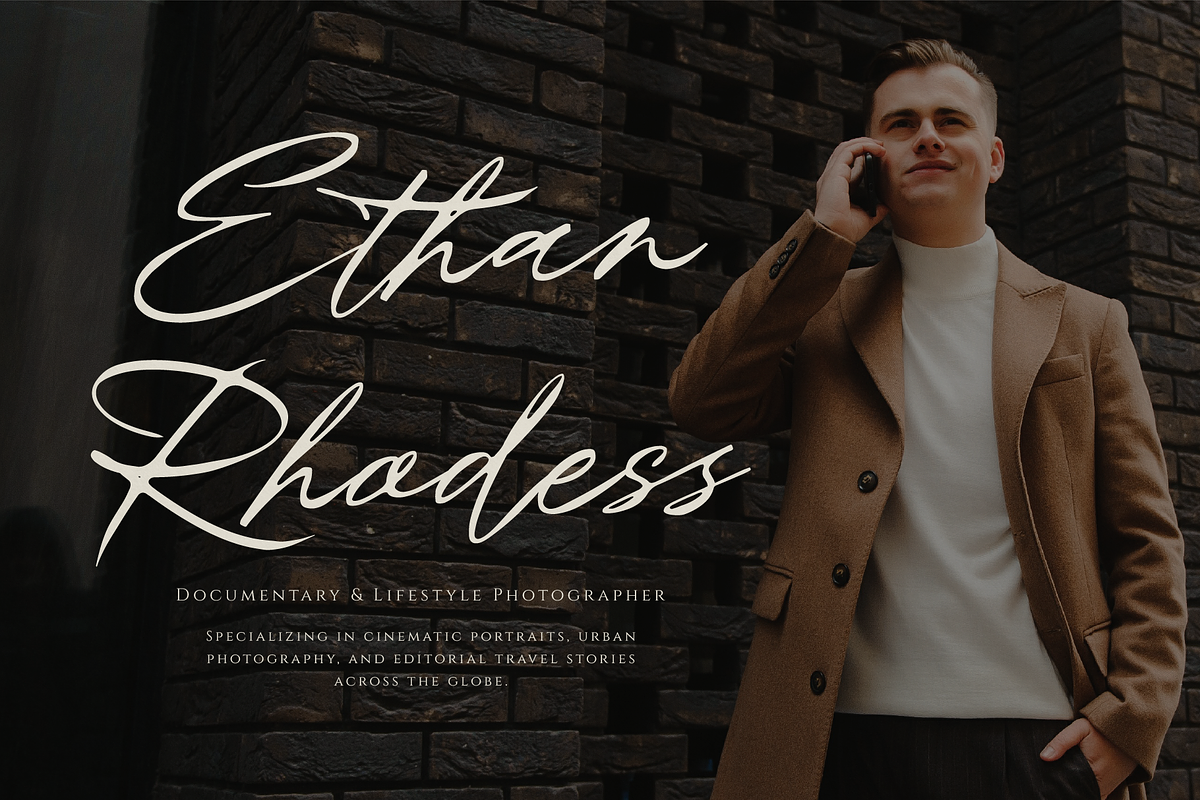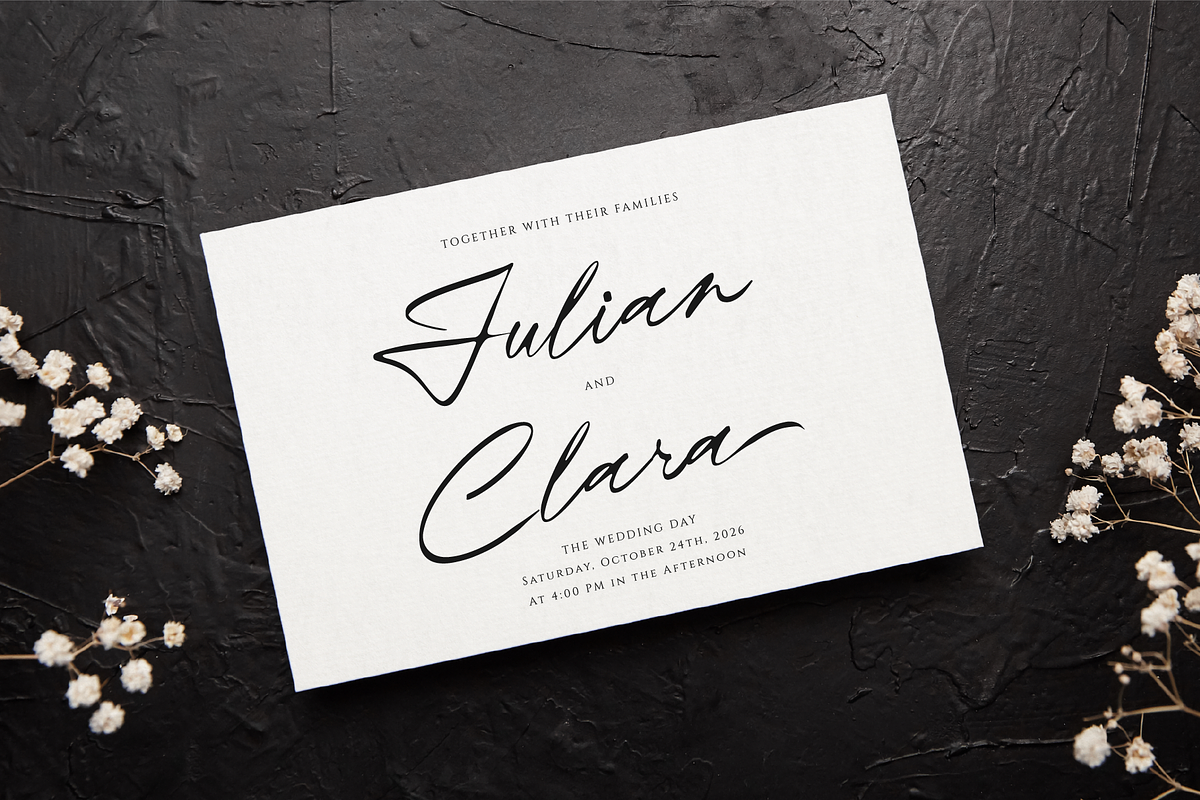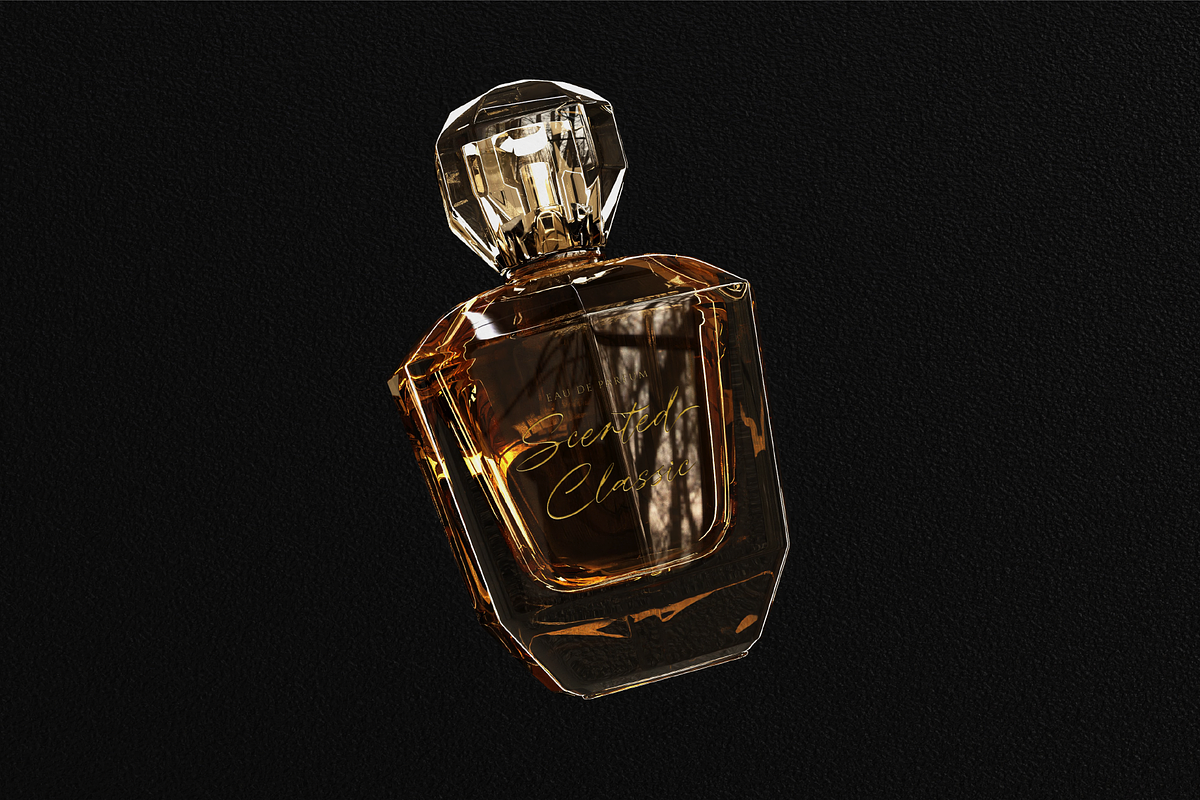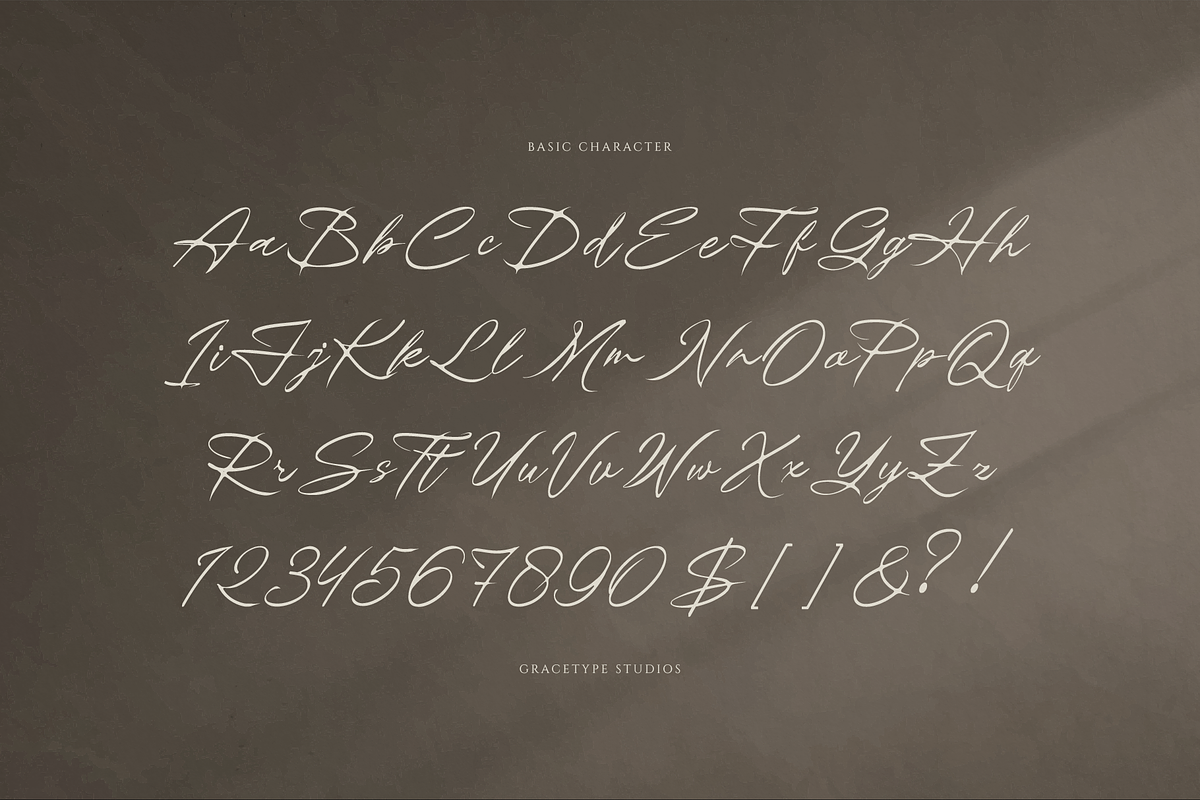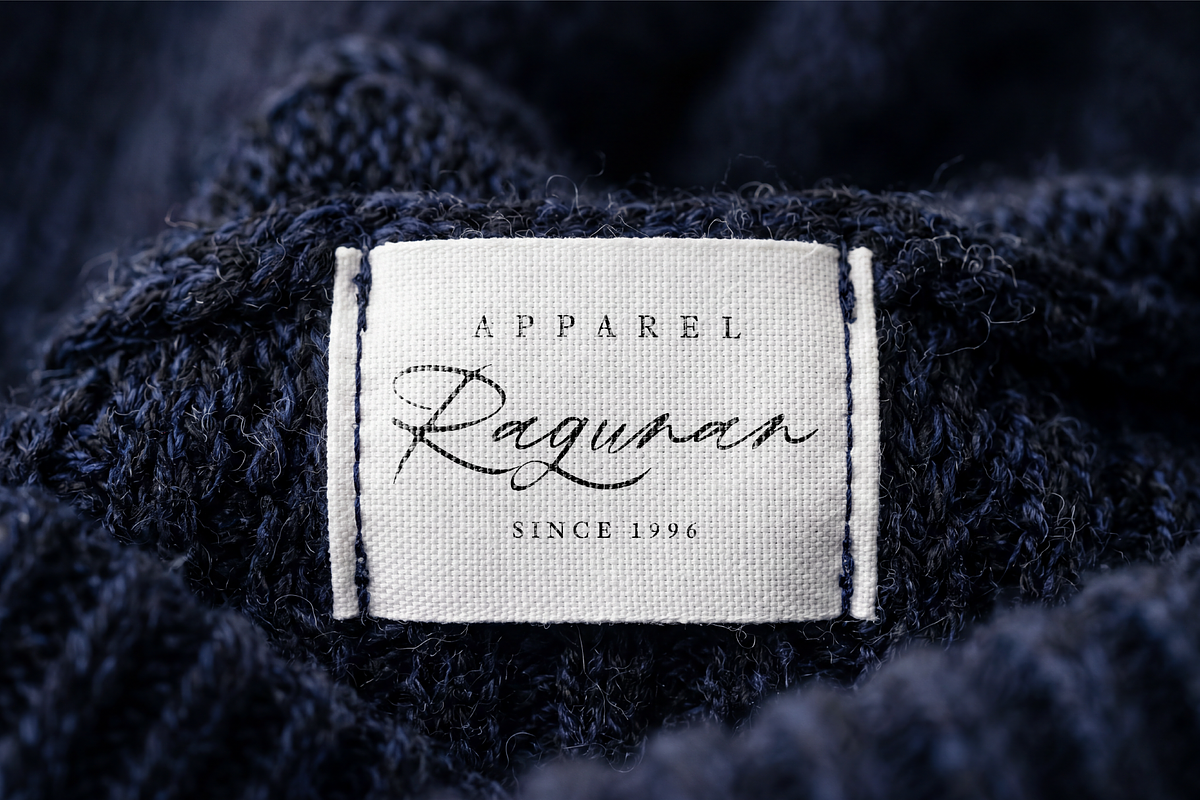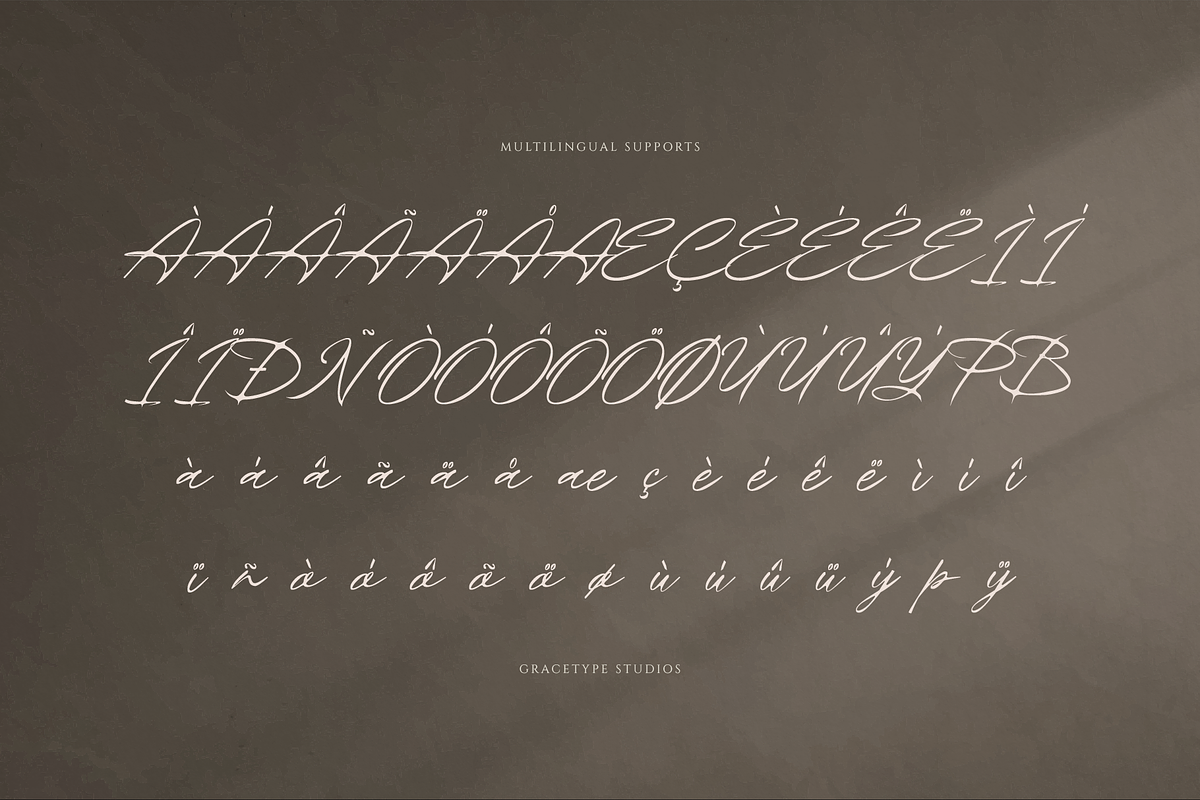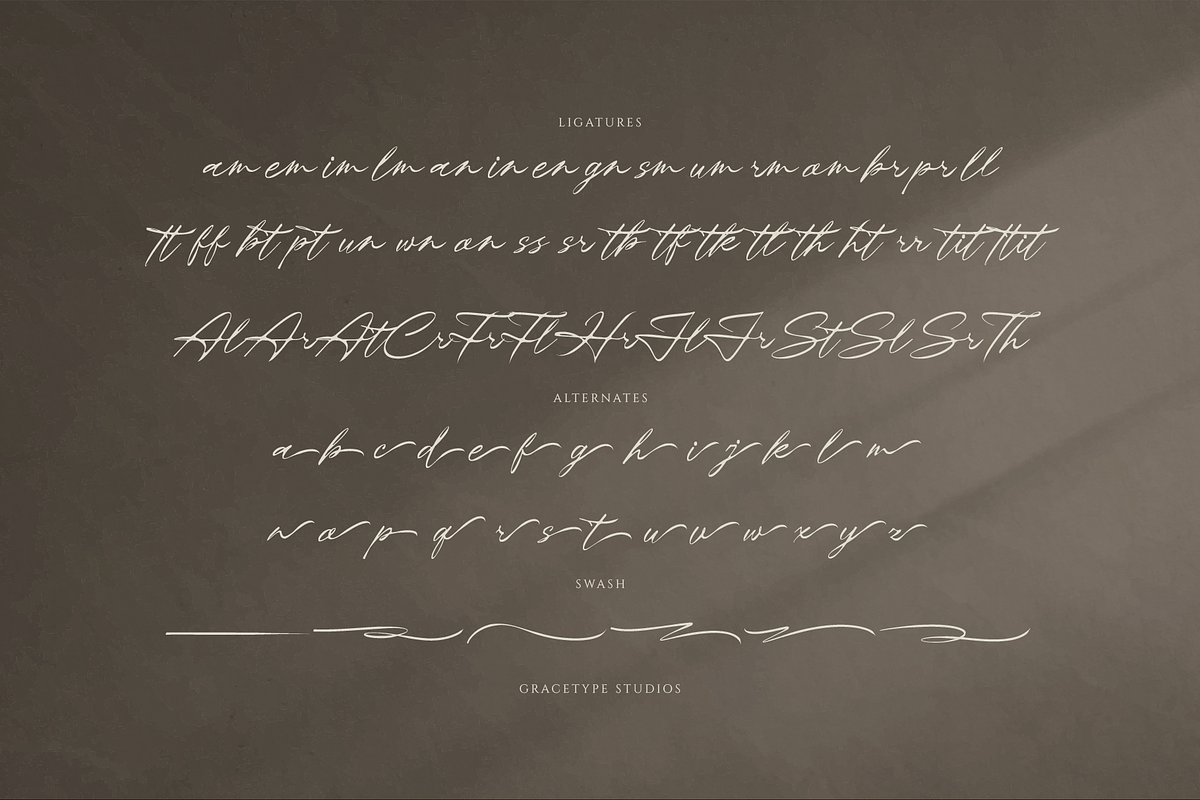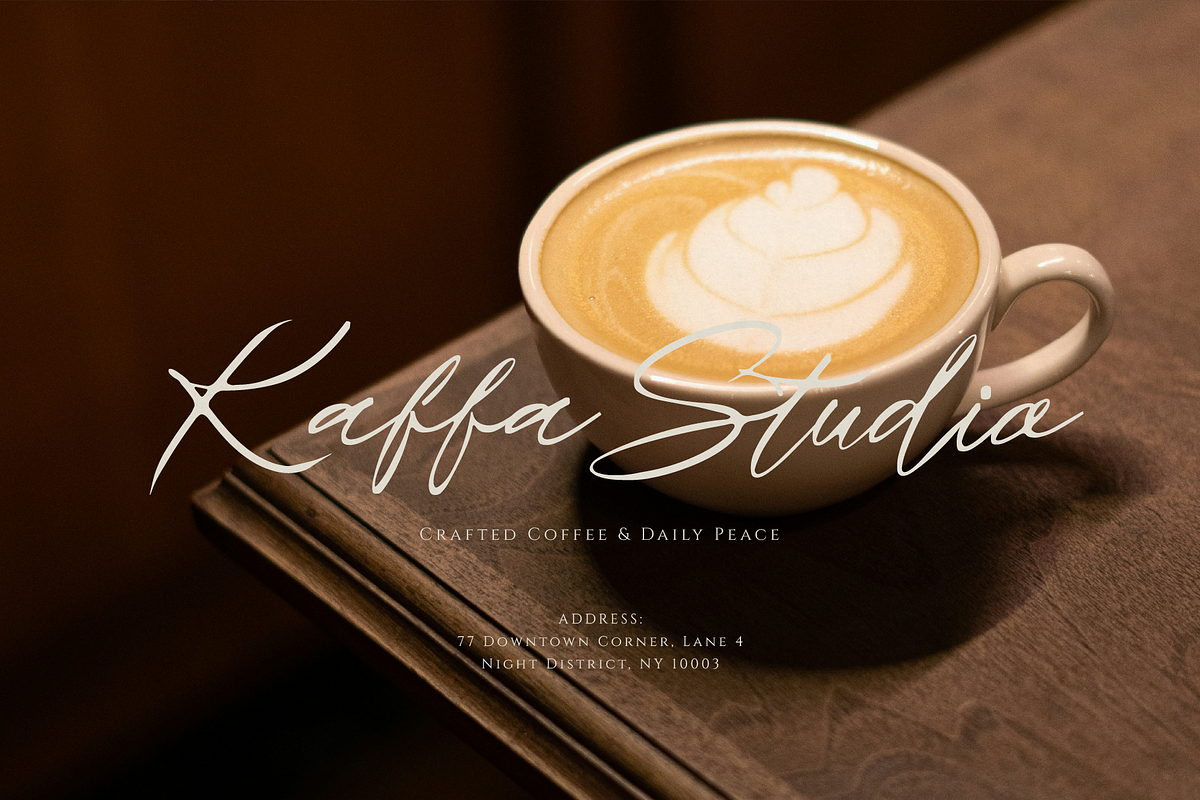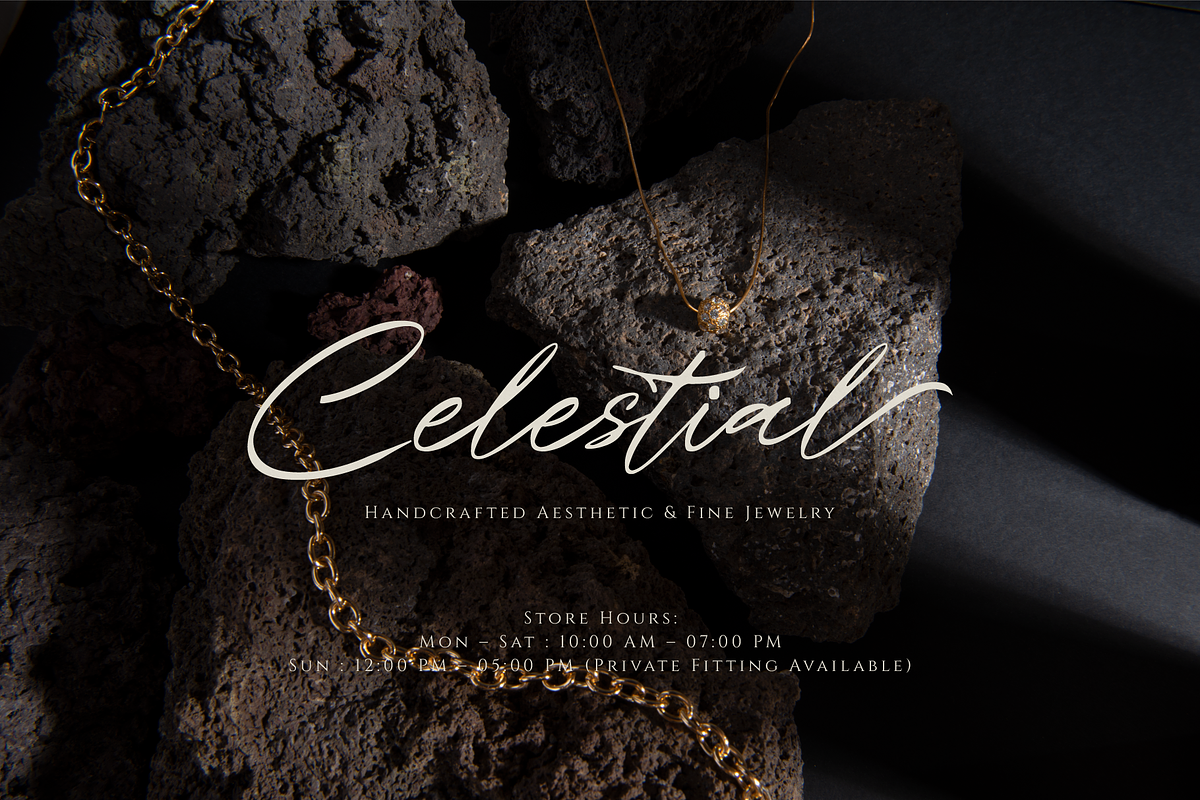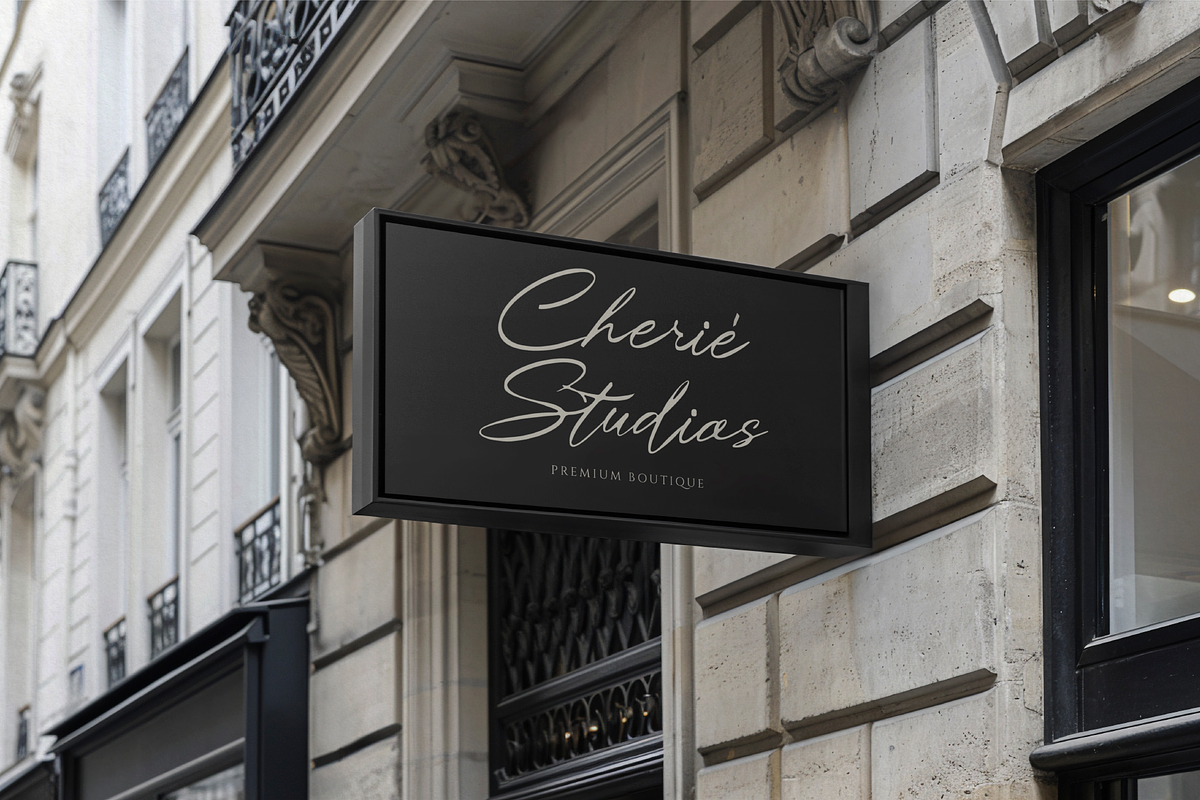
Theyladia | Handwritten Script
Theyladia | Handwritten Script, from Gracetypestudio, suitable for any projects such as: logos, branding projects, homeware designs, product packaging, mugs, quotes, posters, shopping bags, t-shirts, book covers, name card, invitation cards, greeting cards, label, photography, watermark, special events, and all your other lovely projects that need a Script taste.
Alternate and Ligature
Fonts include multilingual support